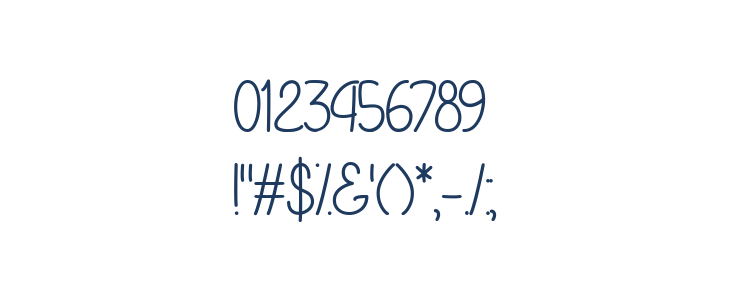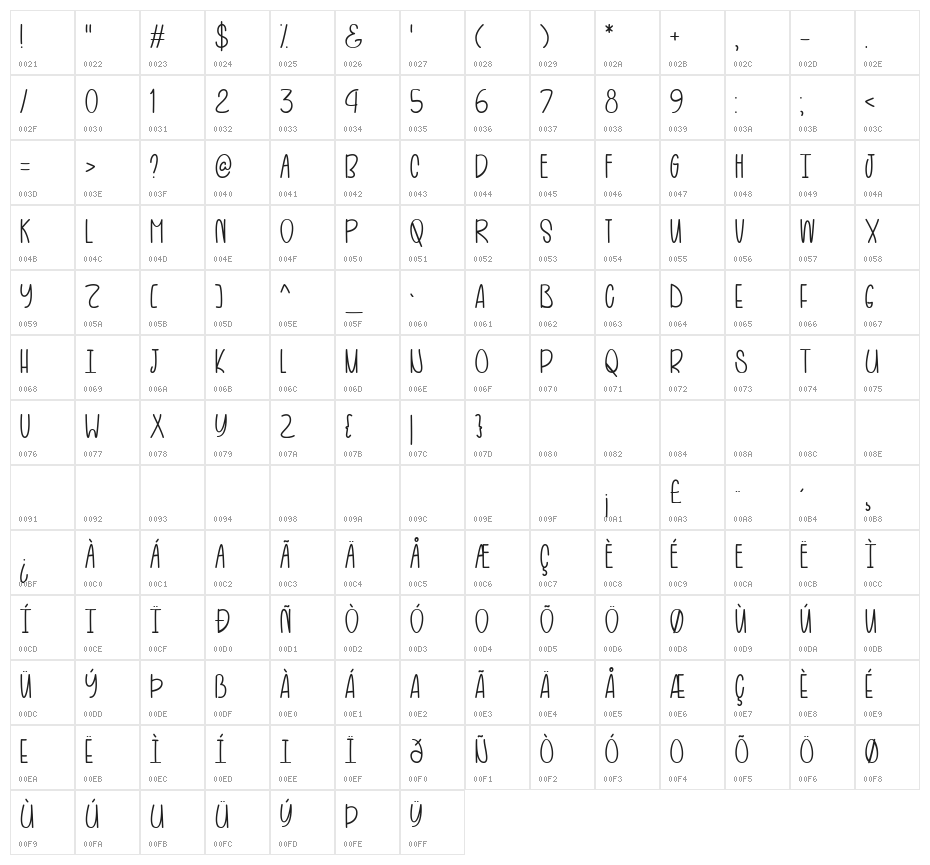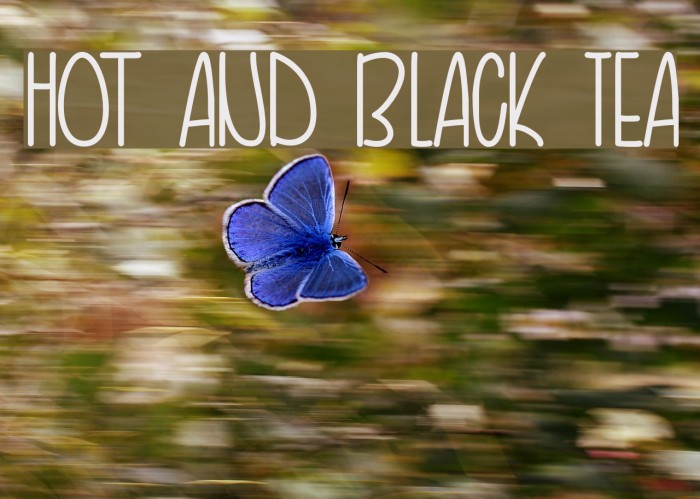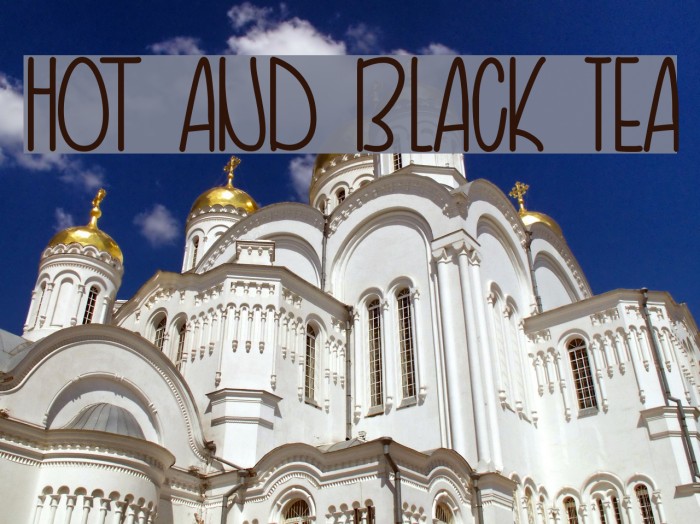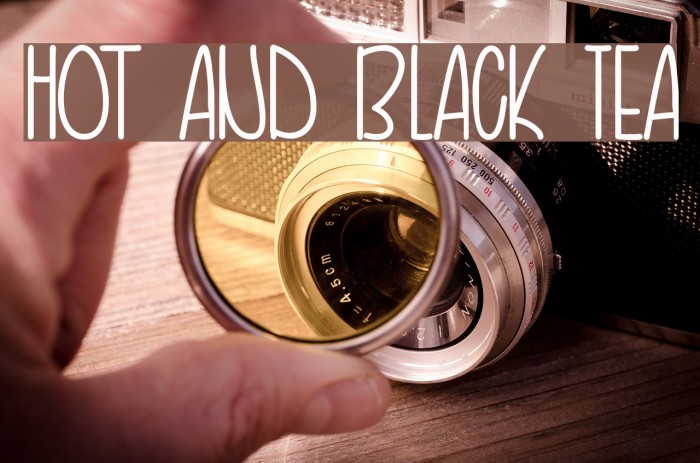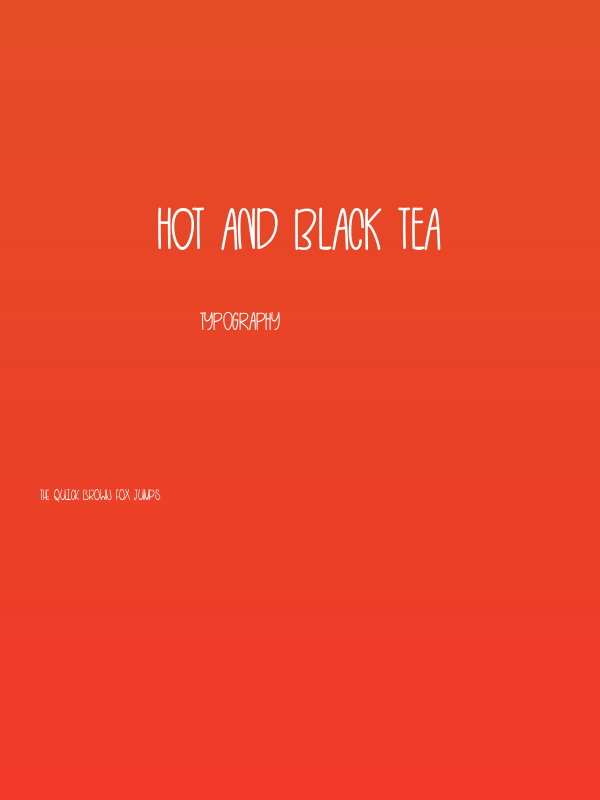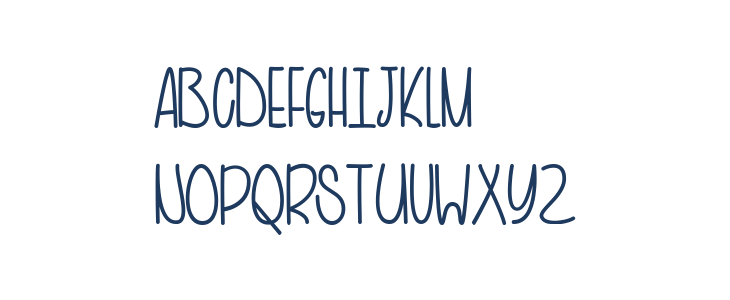
Hot and Black Tea Font
Hot and Black Tea Description
This font features a playful and casual handwritten style with elongated, slightly curved strokes that give it a whimsical and friendly appearance. The letters are tall and narrow, with a consistent stroke width that maintains readability while adding a touch of personality. The numbers and special characters follow the same design principles, ensuring a cohesive look across all glyphs. Its informal nature makes it suitable for projects that require a personal touch, such as invitations, greeting cards, or playful branding materials. The font's unique character is enhanced by its slightly irregular shapes, which add to its charm and approachability.
| Use Case | Headlines, Informal text, Branding |
| Proposed Projects | Ideal for invitations, greeting cards, playful branding, and personal projects. |